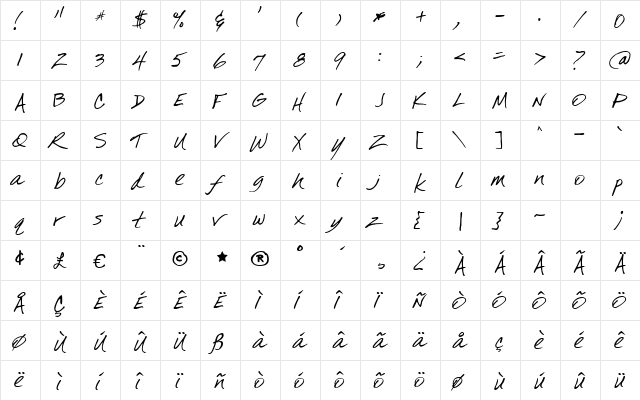
GFYMichael Regular
Design Context for GFYMichael Typeface
GFYMichael is a composed and adaptable typeface that performs quietly and consistently across a wide range of design contexts.